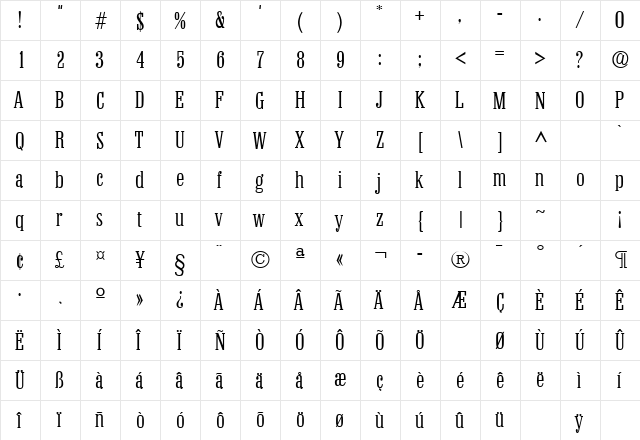
ColonelL Regular
Design Context for ColonelL Typeface
ColonelL takes a measured approach to typography — its balanced proportions and neutral character make it a reliable workhorse for both digital and print work.